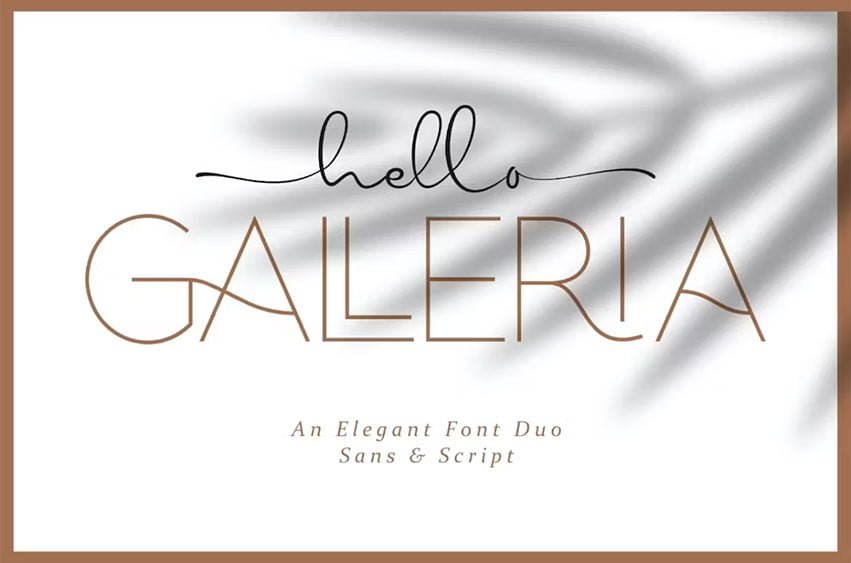
Hello Galleria Font
Hello Galleria Font is a font duo that comes in two styles sans serif and script usually used for wedding events to be placed on invitation cards or social media broadcast information. Hello Galleria available ttf.